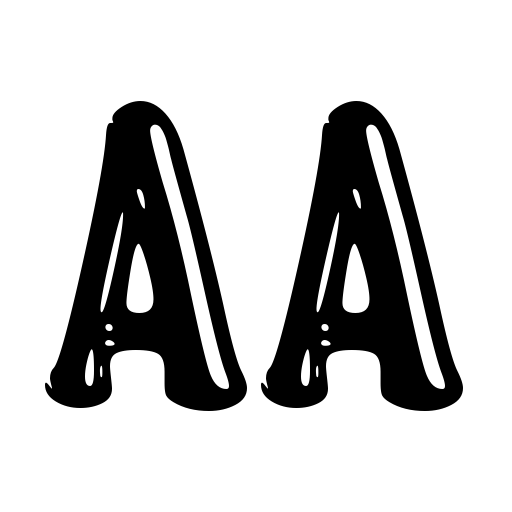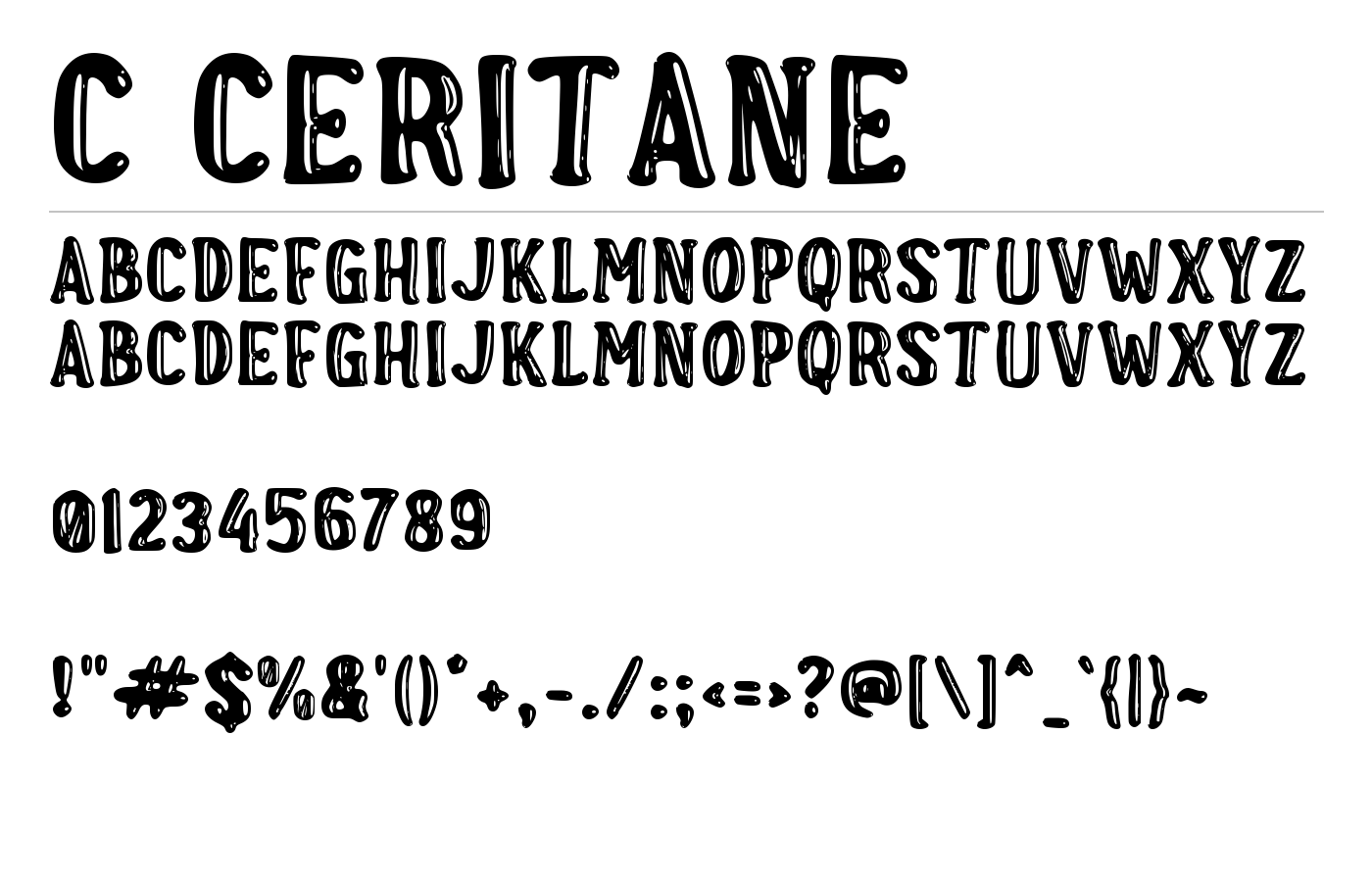
Ceritane is a bold, playful sans serif font with a hand-drawn, slightly distressed texture that adds personality and warmth. Its rounded letterforms and unique irregularities give it a casual, fun vibe, making it ideal for creative projects, children’s designs, or any context that benefits from a friendly and energetic look. This font works well in headlines, posters, and branding where a lively and approachable style is desired.
c Ceritane Font
About c Ceritane Font